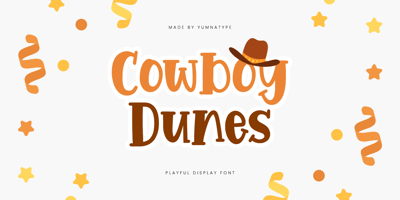
Cowboy Dunes
Cowboy Dunes font
Cowboy Dunes Font Family was designed by Donis Miftahudin and published by Yumna Type. Cowboy Dunes contains 1 styles and family package options. Cowboy Dunes is a charming display font that captures the spirit of playful adventure with its rounded shapes and low contrast design. The playful style of Cowboy Dunes is characterized by its softly rounded letterforms, which give the font a warm and inviting feel. This rounded design not only enhances readability but also adds a sense of fun and creativity to your text.With its low contrast, Cowboy Dunes maintains a smooth and harmonious appearance, ensuring that each letter flows seamlessly into the next. This design makes the font versatile and easy to work with, suitable for both large and small text sizes. In addition, enjoy the features here.Features: Ligatures Multilingual Supports PUA Encoded Numerals and Punctuations Cowboy Dunes fits in headlines, logos, posters, flyers, branding materials, print media, editorial layouts, and many more designs. Find out more ways to use this font by taking a look at the font preview.Thanks for purchasing our fonts. Hopefully, you have a great time using our font. Feel free to contact us anytime for further information or when you have trouble with the font. Thanks a lot and happy designing.